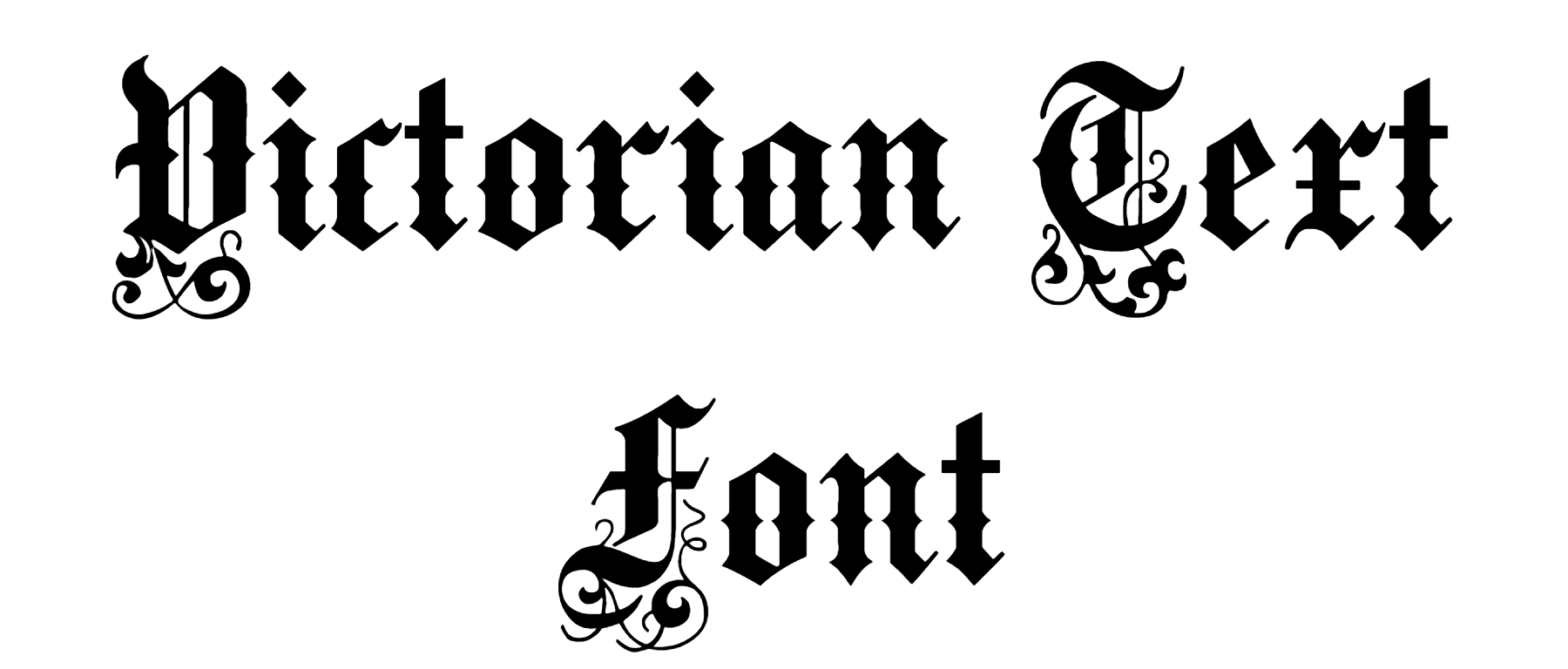
Victorian Text
Victorian Text is a gothic font (2001). Its pointed, heavy strokes give it a dark, dramatic blackletter look. You can download it for free and test it with your own words in the preview above.
You get every letter from A to Z in both cases and all the numbers from 0 to 9, which means Victorian Text can handle full sentences, dates and prices. Everyday marks like &, !, ? and @ are there too. Thanks to its accented letters, it also works for Spanish, French, German, Portuguese and Italian, not just English.
Designers usually reach for fonts like Victorian Text when they're making tattoos, metal band logos and dark fantasy titles. The file has no kerning data, so in logos and big titles check pairs like AV, To and Wa and tighten the spacing by hand. Blackletter is very hard to read in all caps, so type in normal upper and lowercase.